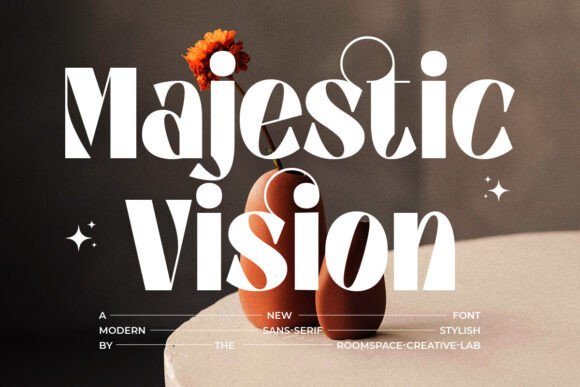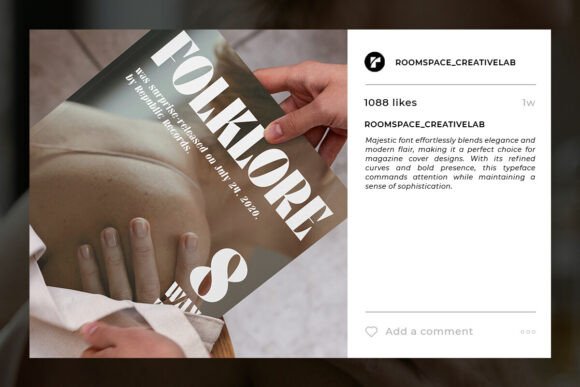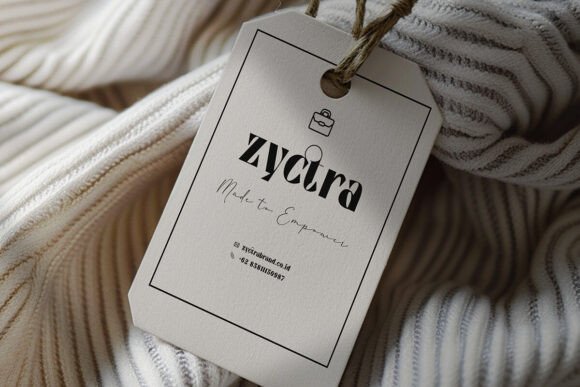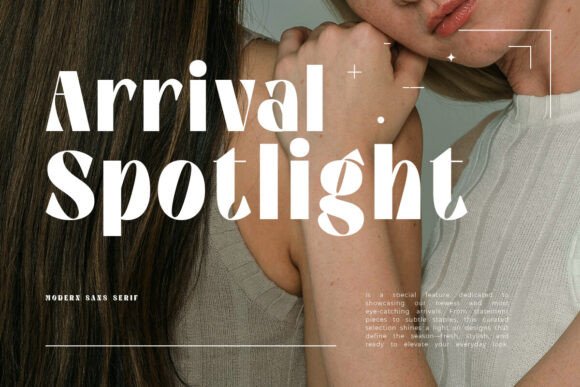
Majestic Vision Font
About the Majestic Vision Font
Elevate your designs with Majestic Vision Font, a font that combines sophistication with readability. Majestic Vision is a display serif font that commands attention through bold shapes, sculptural contrast, and a strong editorial flair. Its design merges retro aesthetics with modern sensibility — perfect for brands, creatives, and designers seeking high-impact visuals with a nostalgic twist.
This font embodies a poised yet playful energy, making it ideal for Instagram graphics, product packaging, editorial layouts, lifestyle blogs, creative portfolios, and branding campaigns that thrive on expressive typography. The balance between heavy verticals and whimsical, almost balloon-like counters gives it a sense of both gravity and movement.
Its letterforms are wide and structured yet softened with quirky, unexpected curves — a signature that makes every character feel custom-crafted. Majestic Vision is not about blending in. It’s about setting a tone — confident, stylish, and memorable.